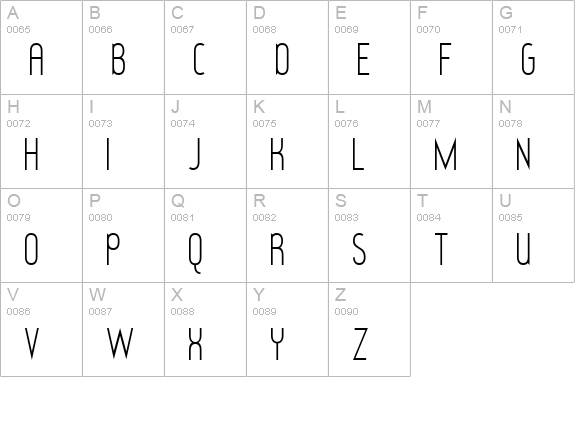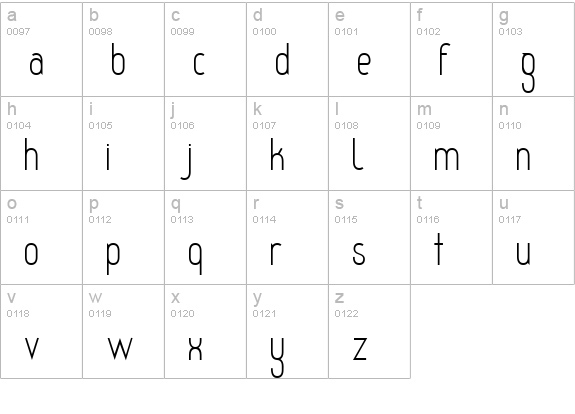
Redhead Goddess Font Details
Introducing the captivating and enchanting Redhead Goddess font, a true epitome of elegance and grace. This font is inspired by the fiery spirit and magnetic charm of redheaded beauties, exuding a sense of allure and sophistication in every stroke. Redhead Goddess font boasts a unique blend of delicate curves and bold lines, creating a harmonious balance between femininity and strength. Its graceful letterforms dance across the page, leaving a lasting impression on any design project. With its wide range of uppercase and lowercase characters, Redhead Goddess font offers versatility and creativity to elevate any creative endeavor. Whether it's a logo, branding materials, invitations, or social media graphics, this font effortlessly adds a touch of glamour and allure. The best part? Redhead Goddess font is available for free! You can easily download this captivating typeface at FontsMarket.com, your one-stop destination for high-quality fonts. Embrace the allure and timeless elegance of the Redhead Goddess font and let your designs shine with its irresistible charm.